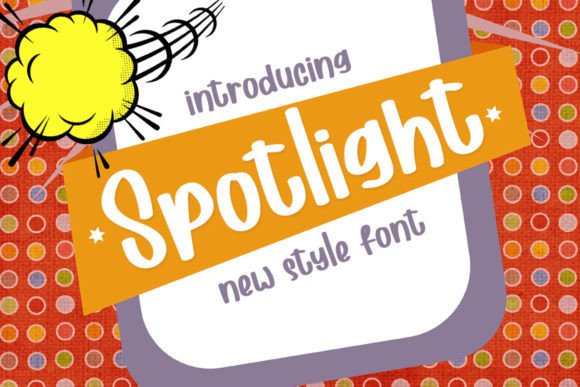
About Spotlight Font
Spotlight is a beautiful and sweet handwritten font. Fresh, clean, and elegant, it will look amazing on a great number of projects, both formal and informal. It will add an incredibly joyful touch to your designs. By using this font, your business will look more beautiful.